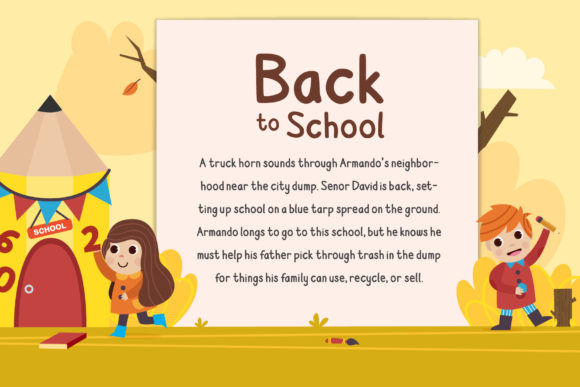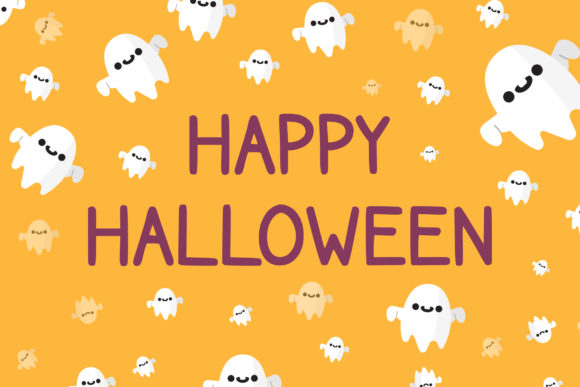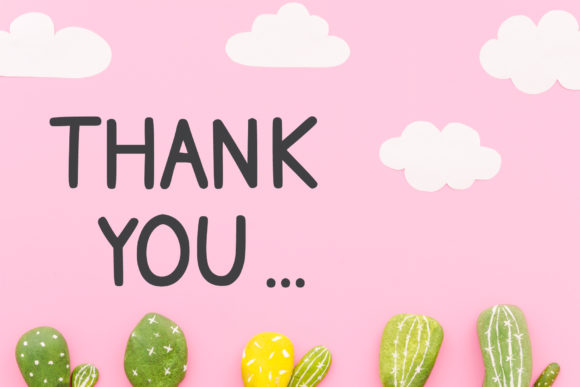
Discover the Magic of Gomgom Font
Have you ever stumbled upon a design that made you stop and stare? Maybe it was a beautiful logo, a stunning advertisement, or a captivating website. Whatever it was, it likely caught your attention because of its unique style and elegance. As a designer, you know that the right font can make all the difference in creating a lasting impression.
Gomgom Font is a magical display font that combines timeless elegance with modern simplicity. Its classic style is infused with a friendly feel, making it the perfect choice for designers looking to create original and outstanding designs. Whether you’re working on a logo, a brochure, or a website, Gomgom Font is sure to elevate your design to the next level.
With Gomgom Font, you’ll have the freedom to express your creativity and bring your designs to life. Its versatility and sophistication make it a valuable addition to any designer’s toolkit. So why settle for ordinary when you can have extraordinary with the Gomgom Font?
Gomgom Font Key Features
- Font Size: The font comes in multiple weights, ranging from Thin to Extra Bold, providing versatility for various design applications.
- Resolution: Gomgom Font is designed for high-resolution displays, making it ideal for use in digital media, such as websites, mobile apps, and social media platforms.
- Unique Characteristics: The font features a unique, playful, and whimsical design, making it perfect for creative projects, such as children’s books, magazines, and advertising materials.
- Language Support: Gomgom Font supports multiple languages, including English, Spanish, French, German, Chinese, and many others, allowing for global reach and versatility.
- Scalability: The font is highly scalable, ensuring that it remains legible and visually appealing at various font sizes and resolutions.
Gomgom Font Review
Gomgom Font is an intriguing sans-serif typeface that has garnered attention for its unique, playful aesthetic. ✨ Upon initial inspection, I appreciate the font’s friendly, approachable feel, making it suitable for casual projects or branding that requires a laid-back vibe. The font’s rounded edges and open letterforms contribute to its approachability.
However, there are some limitations to consider: ⚠️ The font’s irregularities can be a double-edged sword. While its quirks can add charm to certain designs, they may also detract from the overall professionalism of a project. Additionally, the font’s spacing and kerning can be inconsistent at times, which may require manual adjustments to achieve desired results.
- Unique, rounded sans-serif design
- Playful, approachable aesthetic
- Open letterforms and friendly feel
- Variable spacing and kerning
Overall, Gomgom Font is a solid choice for designers seeking a distinctive, casual typeface. While it may not be suitable for every project, its strengths make it an attractive option for branding, advertising, or editorial work that requires a touch of personality.
Gomgom Font Practical Application Guide
Tips for Getting the Most Out of Gomgom Font
Use the Gomgom font to add a playful and whimsical touch to your designs.
Pair the font with bold and bright colors to create a visually appealing effect.
Experiment with different font sizes and styles to add depth and interest to your designs.
Use the Gomgom font for:
Children’s book covers and illustrations.
Party invitations and decorations.
Fun and quirky social media posts.
Alternatives to Gomgom Font
Pacifico is a beautiful, elegant script font that works well for invitations, wedding stationery, and other formal events. It has a similar feel to Gomgom Font but with a more refined and sophisticated look. Pacifico is ideal for designs that require a touch of luxury and sophistication.
Comparison to Gomgom Font: Pacifico is more elegant and refined, making it suitable for formal events and high-end designs. Gomgom Font has a more playful and quirky feel, making it better suited for casual and creative designs.